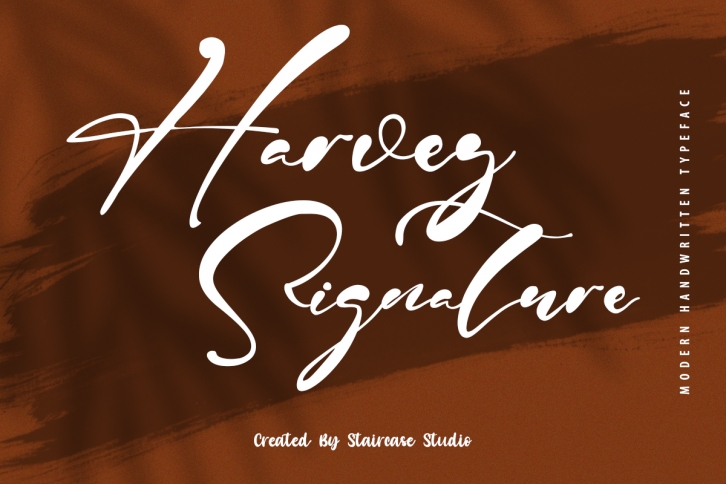
Harvey Signature is a flowing script font carefully created with a touch of trendiness. Whether you’re looking for fonts for Instagram or calligraphy scripts for DIY projects, this font will turn any creative idea into a delicate piece of art!